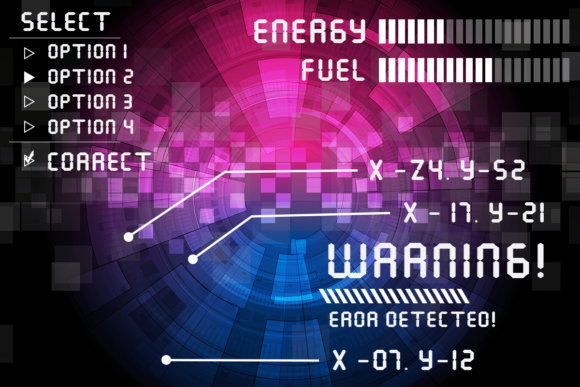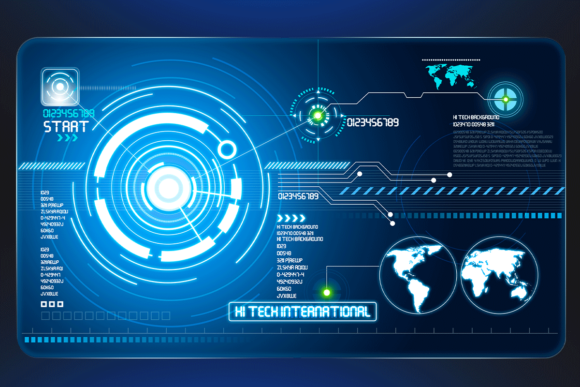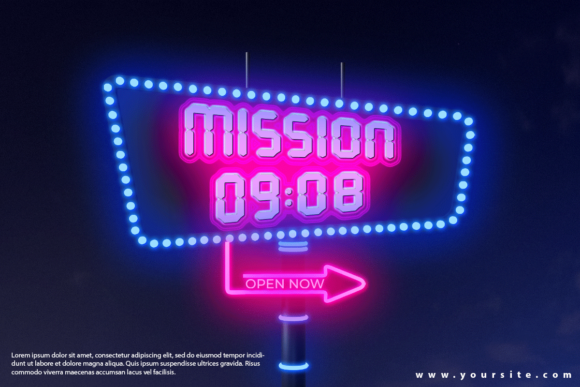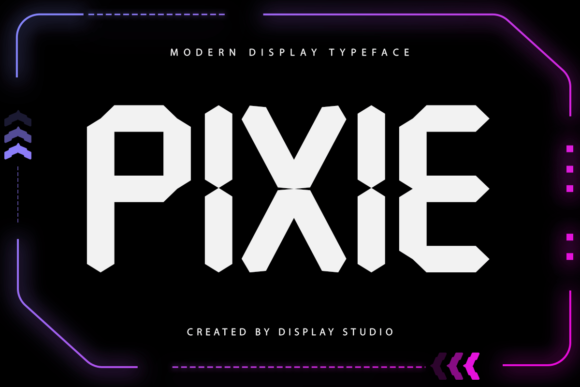
Introduction to Pixie Font
Pixie is a modern and cool display font.
This typeset is perfect for brand logos, website, labels or pretty much any design that requires a futuristic touch .